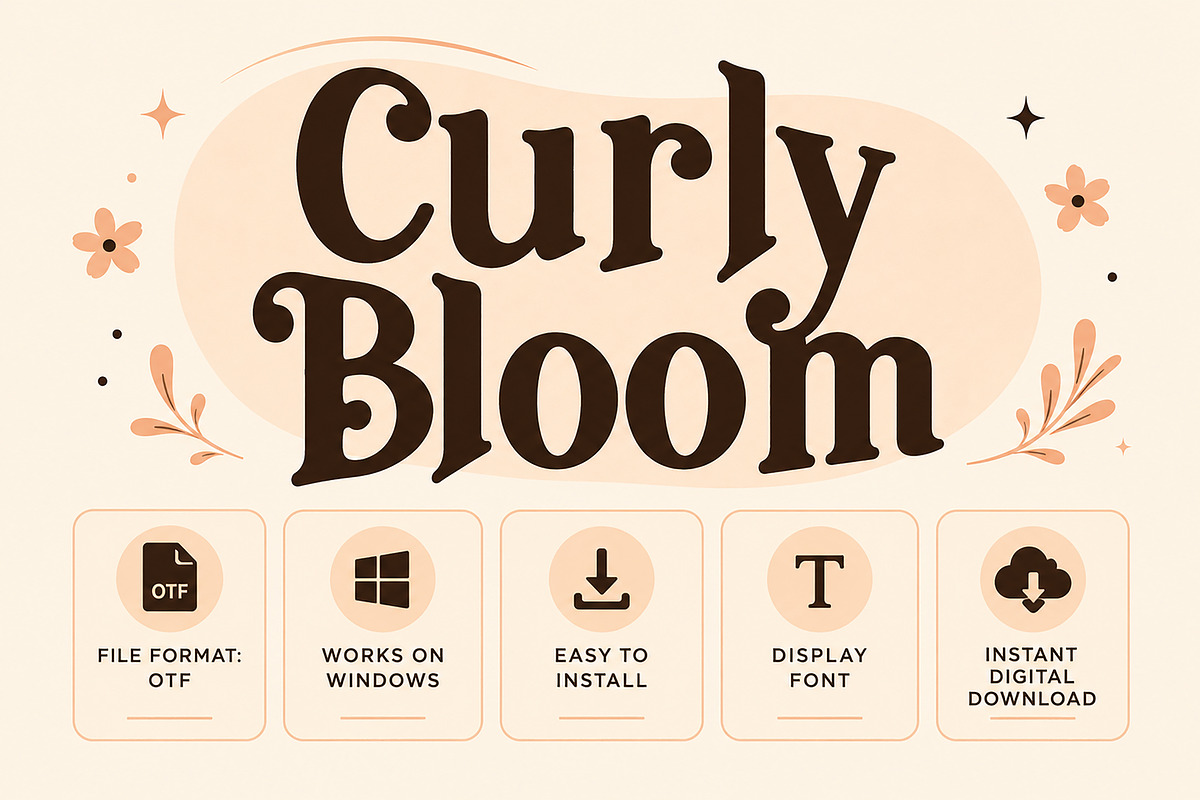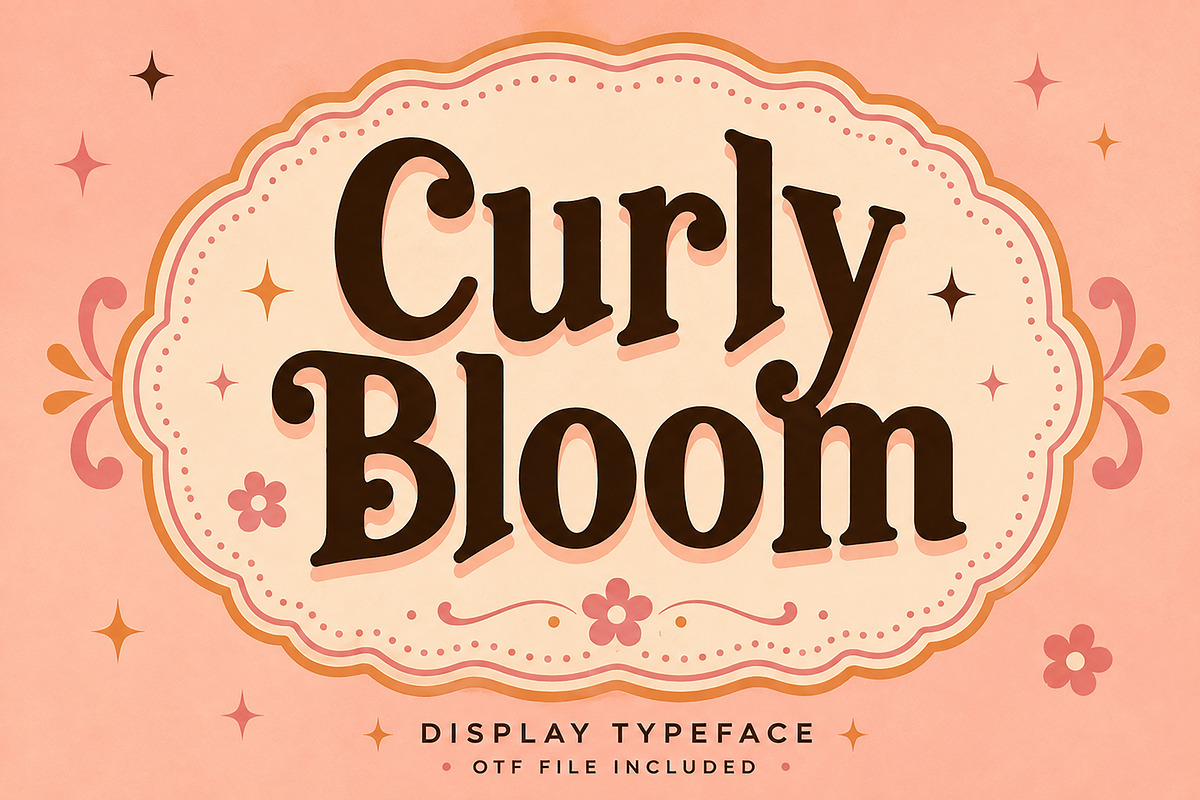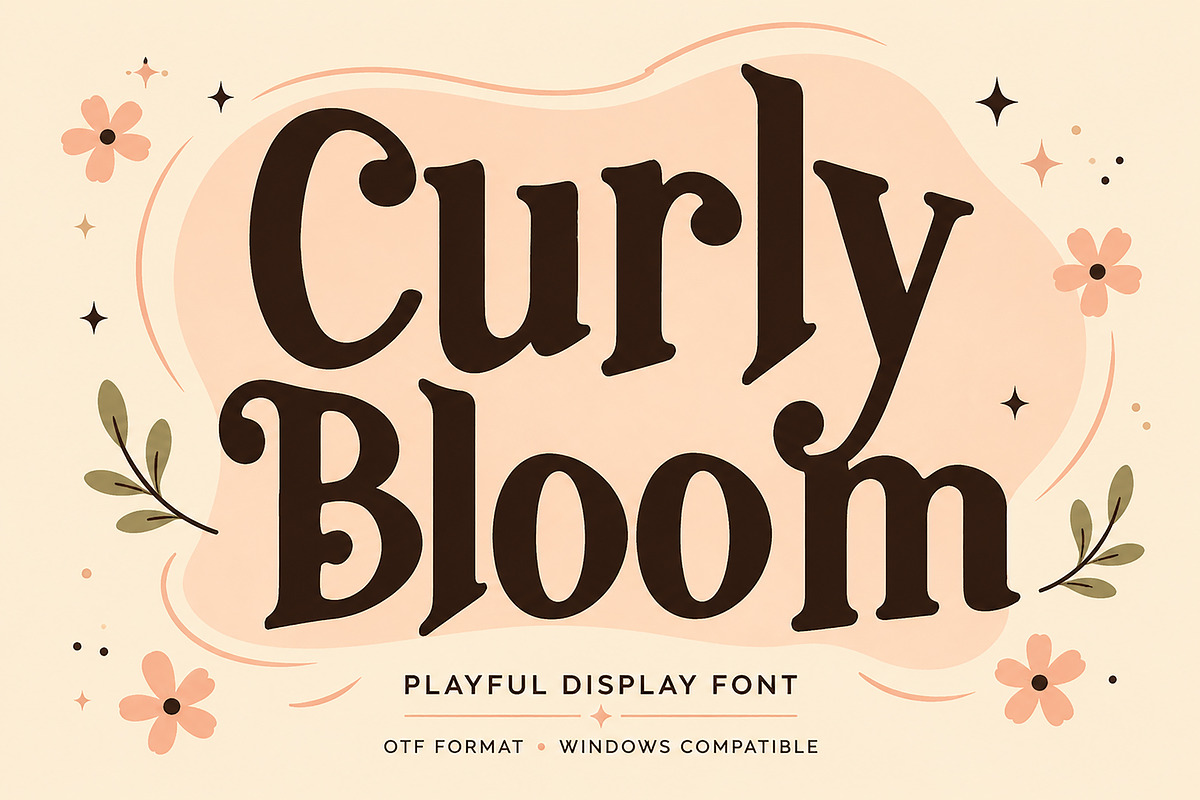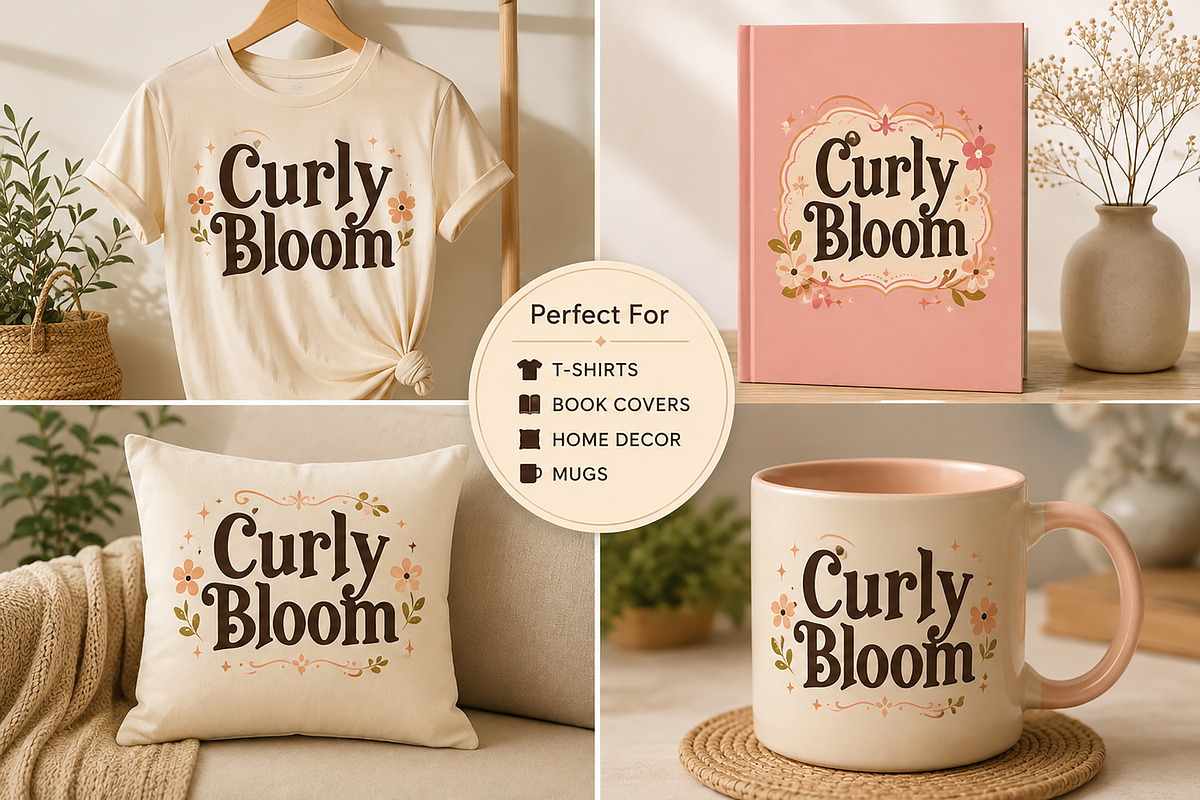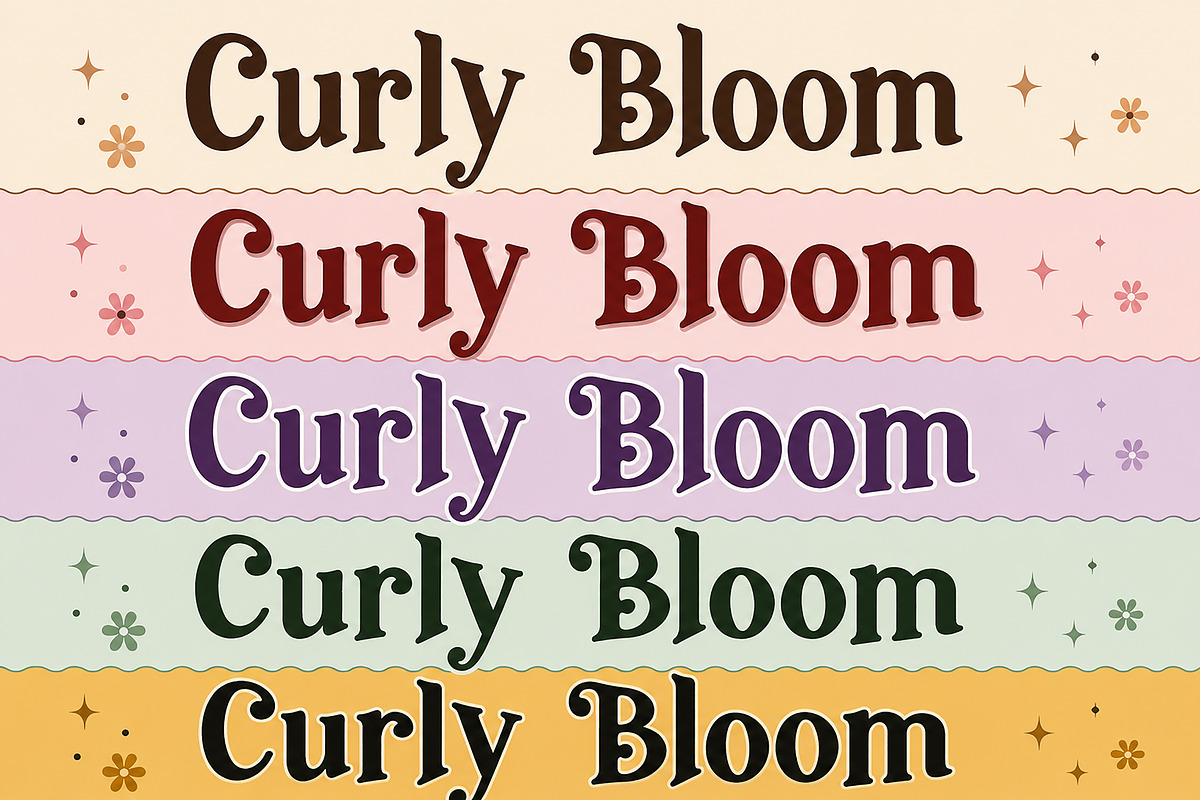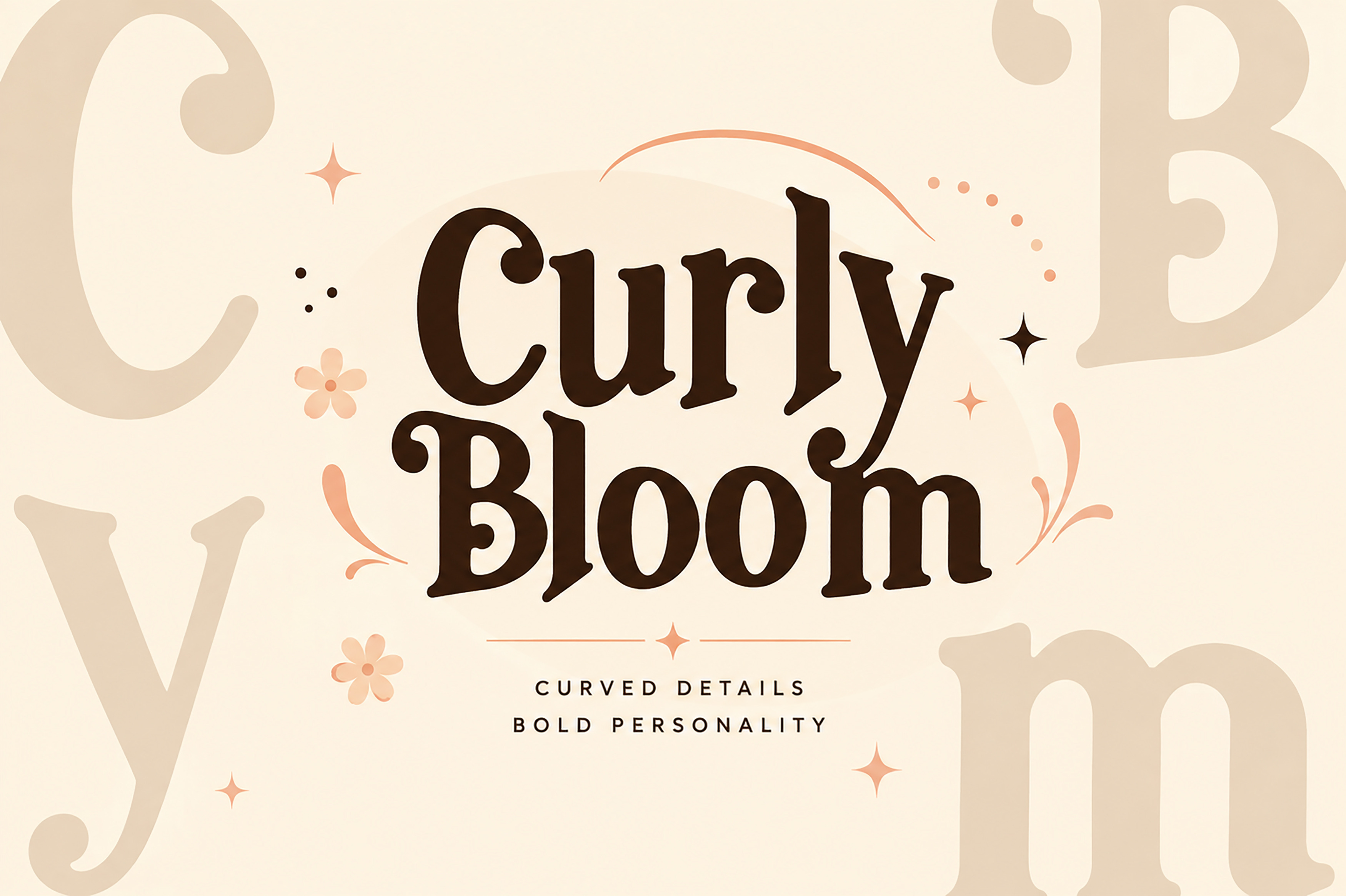
Curly Bloom – Playful Display Font
Bring warmth, charm, and personality to your creative projects with Curly Bloom, a playful display font featuring bold curves and whimsical letterforms. Designed with a retro-inspired aesthetic, this typeface is perfect for creating eye-catching logos, branding, packaging, posters, book covers, apparel, mugs, stickers, social media graphics, and more.
Its unique decorative style makes every design feel cheerful, creative, and memorable while maintaining excellent readability for titles and display purposes.
Whether you're designing for a handmade brand, boutique business, seasonal collection, or fun creative project, Curly Bloom adds a bold and delightful touch.